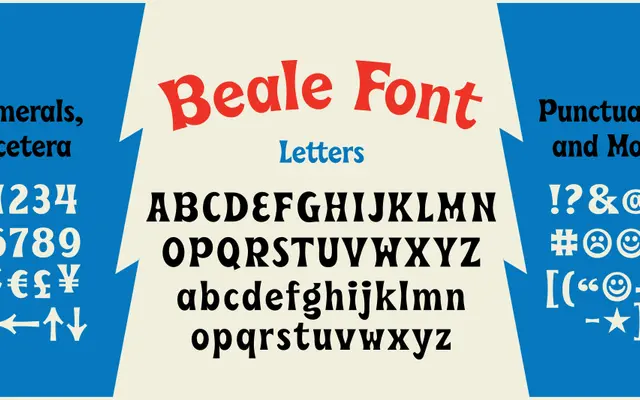
Beale
A retro display serif drawn from Blues and Rock 'N' Roll record lettering associated with Sun Studio and Stax Records in Memphis, Tennessee.
Originally created as custom lettering for a speaking engagement in Memphis with Creative Works, Beale takes its cues from the hand-lettered typography found on Blues and Rock 'N' Roll records from Sun Studio and Stax. Three weights from Light to Black provide range for display and headline use, and the character set includes an extended range of Latin accents and additional fun glyphs. Best suited to music, cultural and event contexts where a sense of American Southern retro identity is wanted.
Classified as display given its origin as decorative lettering for a specific event and its inspiration from Blues and Rock 'N' Roll record typography; the serif construction has a funky, expressive retro character rather than a text setting intent.